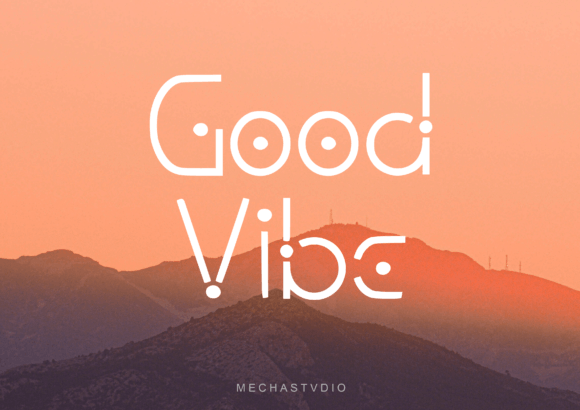
The Euphoria Font: Elevate Your Designs with a Modern Twist
An Honest Review of Euphoria Font
So, what makes Euphoria font so special? Let’s dive into the good stuff and, of course, a few quirks I’ve noticed.
- ✅ Modern and clean aesthetic: Euphoria font boasts a sleek, contemporary design that instantly elevates any project.
- ✨ Unique character set: The font’s distinct style ensures your designs stand out from the crowd.
- 💡 Versatility: Euphoria font is perfect for a wide range of projects, from logos and branding to digital media and print materials.
- 📈 Scalability: This font remains crisp and clear, even at small sizes or when scaled up.
While Euphoria font is an excellent choice, there are a few things to keep in mind:
- 🤔 Limited language support: Euphoria font might not support all languages or special characters, so be sure to check the font’s specifications before use.
- ⚠️ Not ideal for body text: Due to its modern, sleek design, Euphoria font might not be the best choice for lengthy body text. It’s perfect for headings, titles, and short paragraphs, though!
- Experiment with OpenType features like ligatures and stylistic alternates to add an extra creative touch.
Although the origins of Euphoria font are shrouded in mystery, it’s said that the designer was inspired by the world of art and architecture. The font’s unique style is a blend of modern minimalism and creative flair, making it perfect for designers looking to add a touch of sophistication to their projects.
Q: What type of projects is Euphoria font best suited for?
Euphoria font is versatile and can be used for various projects, including logos, branding, digital media, print materials, and more.
Q: Is Euphoria font suitable for body text?
While Euphoria font is perfect for headings and titles, it might not be the best choice for lengthy body text due to its modern, sleek design.